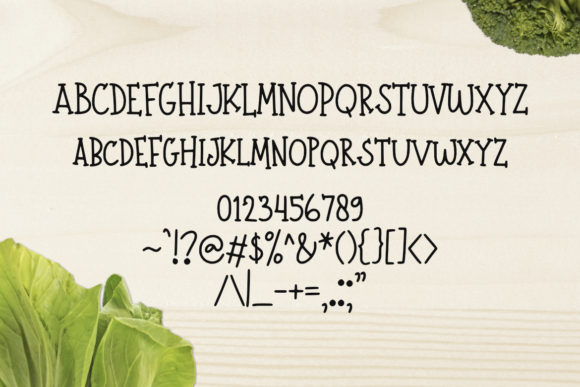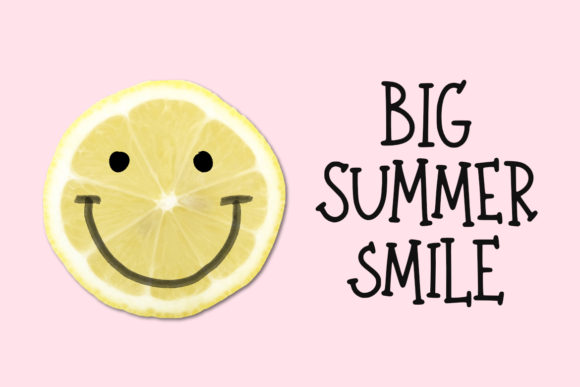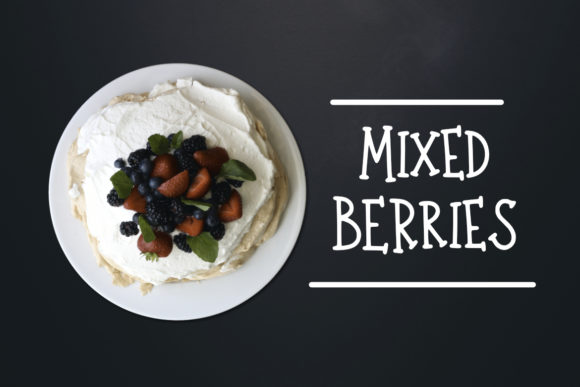
Farmer Market Font: A Charming Serif Font for Your Creative Projects
Are you a designer, crafter, or DIY enthusiast looking for a unique font to add a touch of personality to your projects? Look no further than the Farmer Market Font, a gorgeous serif font with a cute twist that’s sure to inspire your creativity. In this article, we’ll explore the features and benefits of the Farmer Market Font, and show you how to make the most of its charming character.
What is Farmer Market Font?
Farmer Market Font is a serif font that’s designed to evoke the feeling of a bustling farmer’s market. With its playful, hand-drawn aesthetic, this font is perfect for adding a touch of whimsy to your designs. The font features classic serif elements, such as small flourishes and decorative details, but with a modern twist that makes it perfect for a wide range of creative projects.
Unique Features of Farmer Market Font
So what sets Farmer Market Font apart from other serif fonts on the market? Here are just a few of its unique features:
• Playful aesthetic: Farmer Market Font has a fun, playful vibe that’s perfect for designs that need a little personality.
• Hand-drawn details: The font features intricate, hand-drawn details that give it a charming, artisanal feel.
• Serif elegance: Despite its playful aesthetic, Farmer Market Font still retains the classic elegance of a serif font, making it perfect for designs that need a touch of sophistication.
• Versatility: This font is perfect for a wide range of creative projects, from branding and packaging to crafting and DIY tutorials.
How to Use Farmer Market Font in Your Designs
Now that we’ve explored the features and benefits of Farmer Market Font, let’s talk about how to use it in your designs. Here are a few ideas to get you started:
• Branding and packaging: Use Farmer Market Font to add a touch of personality to your brand’s packaging and marketing materials.
• Crafting and DIY tutorials: This font is perfect for crafting and DIY tutorials, where a playful aesthetic can help make your projects more approachable and fun.
• Signage and displays: Use Farmer Market Font to create eye-catching signage and displays that will grab attention and draw customers in.
• Digital designs: This font is also perfect for digital designs, such as social media graphics, blog posts, and email newsletters.
Tips for Getting the Most Out of Farmer Market Font
To get the most out of Farmer Market Font, here are a few tips to keep in mind:
• Use it sparingly: While Farmer Market Font is a beautiful font, it can be overwhelming if used too much. Use it sparingly to add a touch of personality to your designs.
• Pair it with other fonts: Experiment with pairing Farmer Market Font with other fonts to create a unique and visually appealing combination.
• Experiment with colors: Don’t be afraid to experiment with different colors and textures to add depth and interest to your designs.
In conclusion, Farmer Market Font is a gorgeous serif font with a cute twist that’s perfect for designers, crafters, and DIY enthusiasts. With its playful aesthetic, hand-drawn details, and classic serif elegance, this font is sure to inspire your creativity and add a touch of personality to your designs. Whether you’re working on a branding project, crafting tutorial, or digital design, Farmer Market Font is a great choice. So why not give it a try and see the difference it can make in your work?